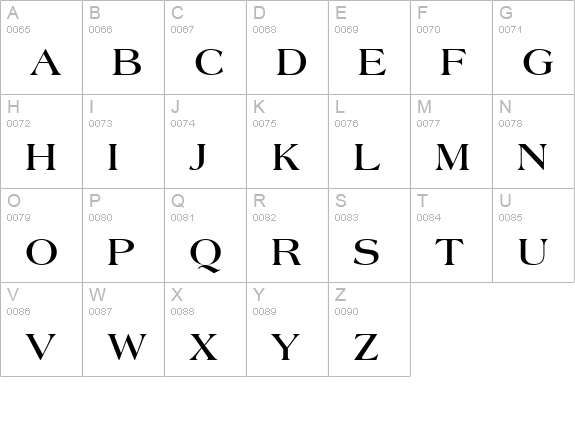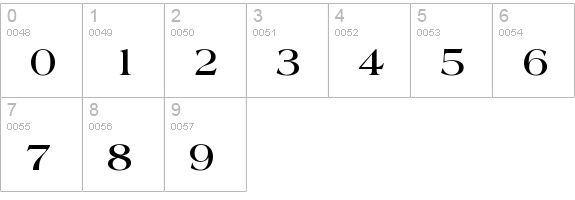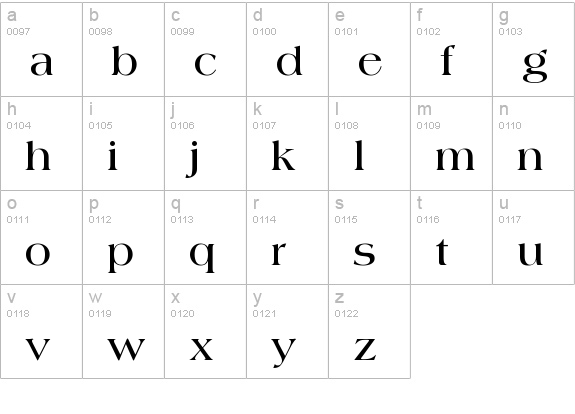
Countryside SSi Bold Font Details
Countryside SSi Bold is a strong, high-contrast variant in the Countryside typeface family \xE2\x80\x94 well suited to headlines, attention-grabbing titles, and strong calls-to-action.
Countryside SSi Bold font is a timeless and versatile typeface that exudes a sense of rustic charm and elegance. With its bold and striking appearance, this font is perfect for adding a touch of sophistication to any design project. Whether you're creating signage for a quaint country store or designing invitations for a rustic wedding, Countryside SSi Bold font is sure to make a statement. What's even better is that Countryside SSi Bold font is available for free download at FontsMarket.com. This means you can easily access this beautiful font and use it in your projects without any cost. So why wait? Enhance your designs with the classic appeal of Countryside SSi Bold font today!